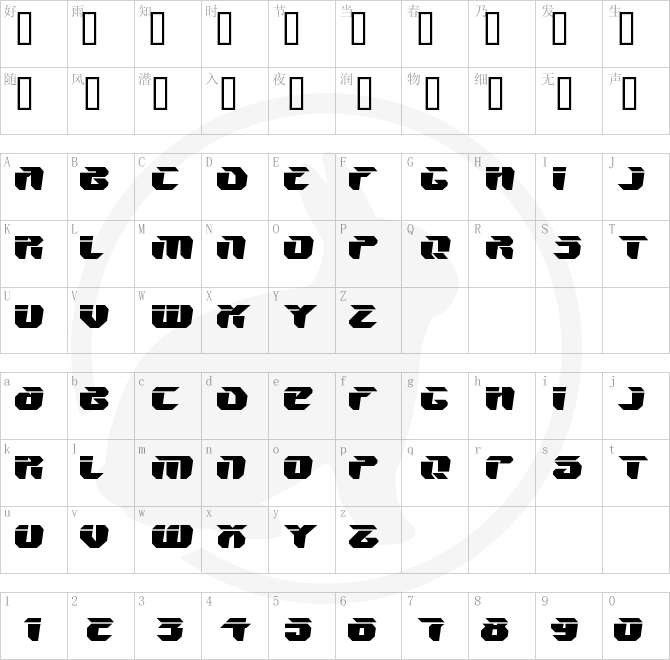
- Font Name:V5 Ampon
- Subfamily:Ampon [Mixed] - Designed by Roberto Christen
V5-Ampon-Warped.ttf is a very beautiful artistic font, V5-Ampon-Warped.ttf is widely used in the design and printing of various books and pictures,V5-Ampon-Warped.ttf has a strong visual impact,V5-Ampon-Warped.ttf is a commonly used font in newspapers, magazines and books, and is used in posters, e-commerce Poster design, store design, logo design, font design and other fields.V5-Ampon-Warped.